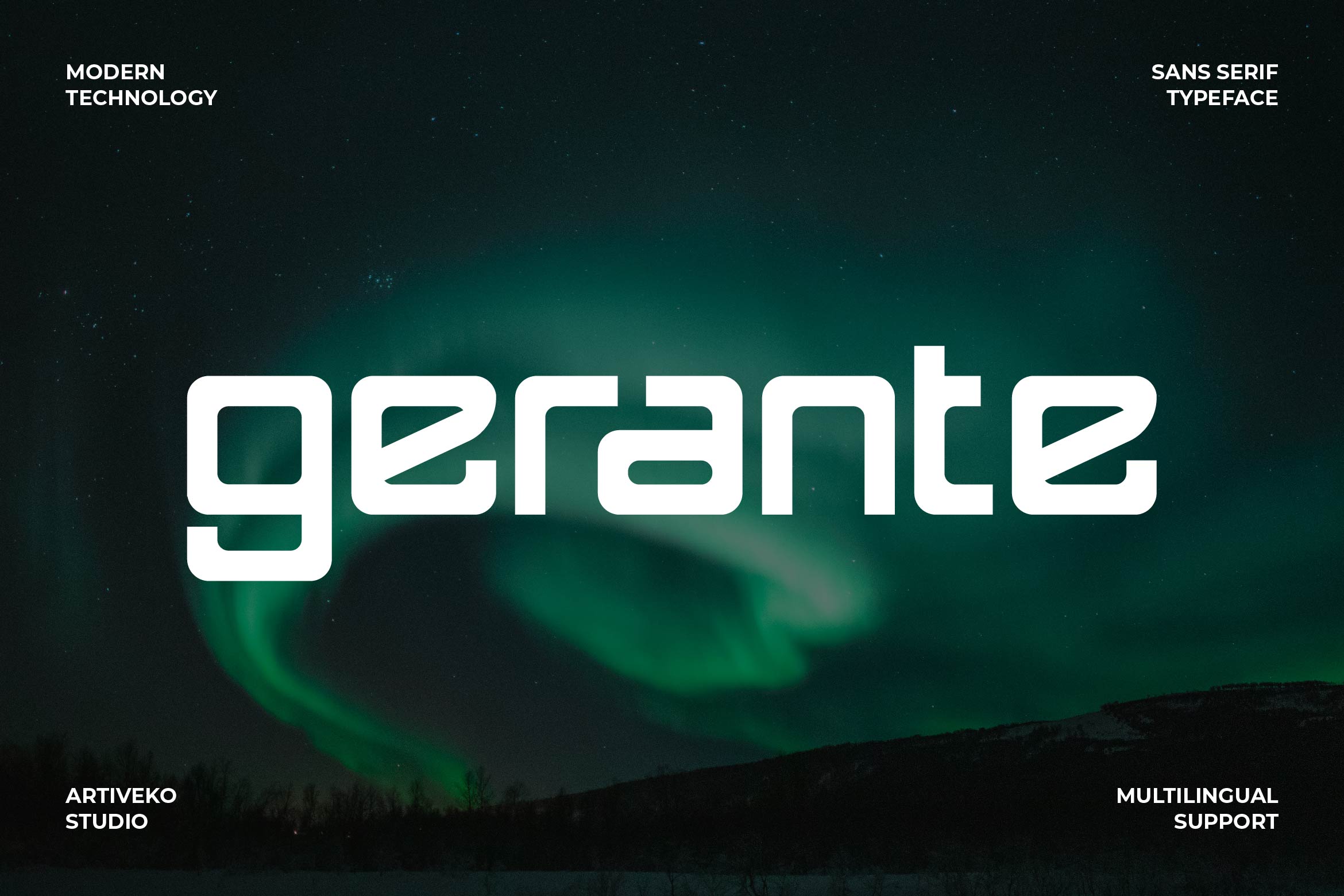
- Gerante Technology Font
Gerante is a sleek and contemporary tech-inspired sans serif font designed for cutting-edge digital and technology-driven projects. With its geometric construction, sharp angles, and futuristic aesthetic, Gerante is perfect for branding, UI/UX design, app interfaces, gaming titles, sci-fi posters, and tech product packaging.
Its clean yet distinctive letterforms provide excellent readability while maintaining a strong, modern presence. Whether used for bold headlines, minimalist logotypes, or futuristic displays, Gerante adds an innovative edge to your designs.
The font includes uppercase and lowercase letters, numerals, punctuation, multilingual support, and stylistic alternates for enhanced creative flexibility.
Elevate your designs with Gerante — the tech sans serif font that combines precision, clarity, and forward-thinking style.